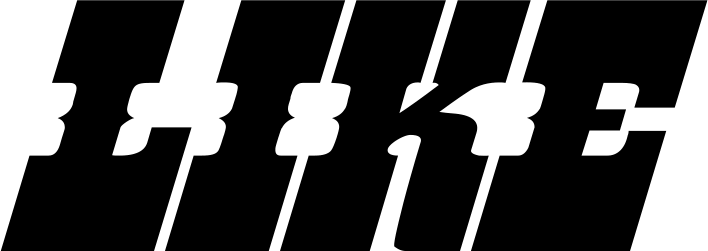
CF University Of Nowhere Font
If it’s a matter of making quite an impression using only your words, you’ll be surprised at what CF University Of Nowhere is capable of. Comprised of capitals minus the lowercase versions, this basketball font gives a clear hint that it’s not body text material.
Nonetheless, enjoy its awesome style and strong vibes once CF University Of Nowhere shares its amazing features with your logotype, gaming graphic, apparel, packaging, and more. Brilliant, right?